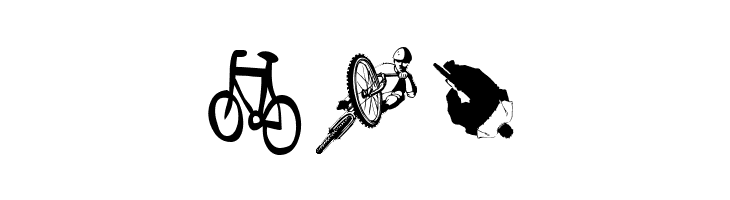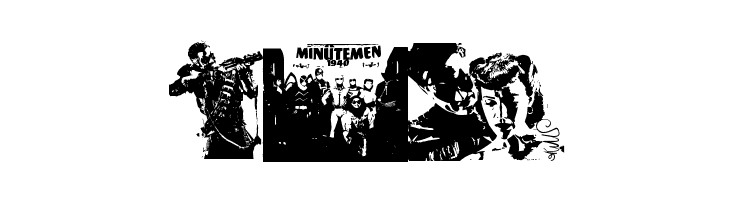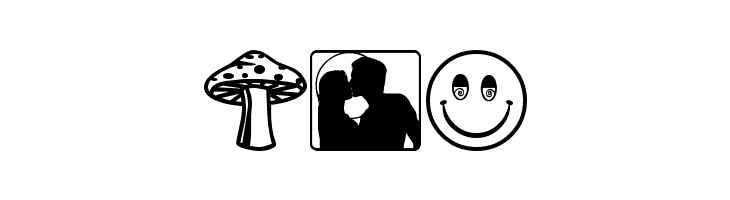
A bold pictogram font of road and traffic signage icons.
Cycling-themed pictogram font with playful illustrations.
A 1970s-themed decorative dingbat font with iconic retro illustrations.
A collection of DJ and music-themed icons and graphics.
A decorative set of intricate and artistic symbols with a vintage, mystical style.
A display font using portrait images for each character.